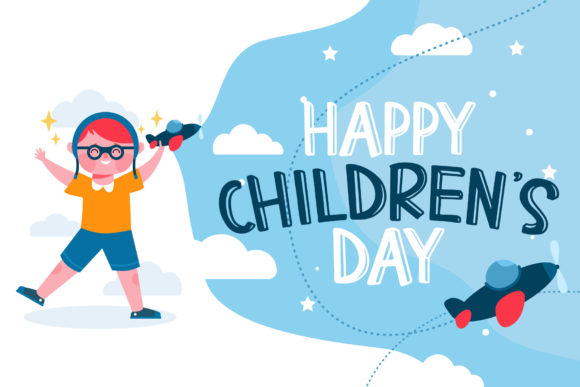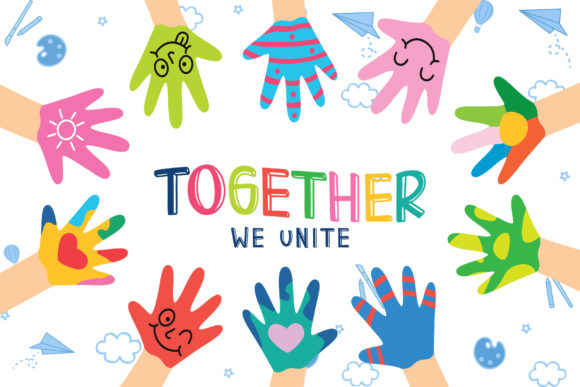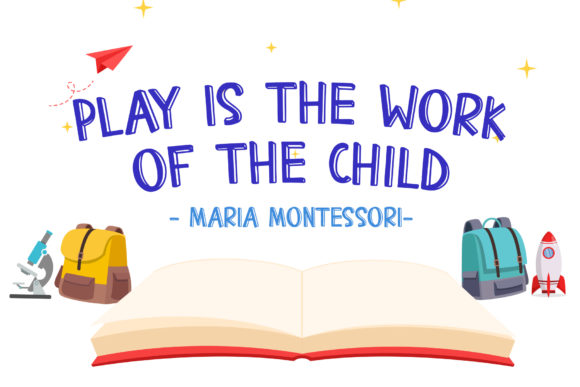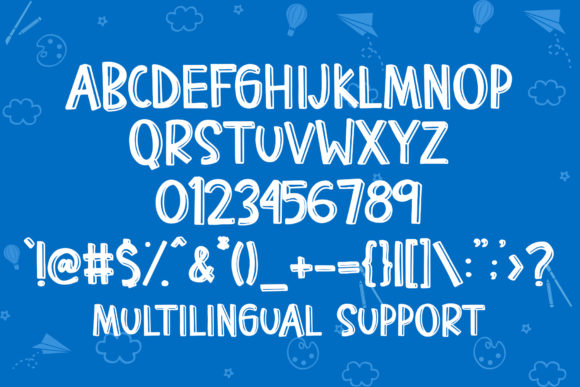
Introduction to Kidz Block Font
Remember the moment when you were tasked with designing a children’s activity sheet and you wanted to make it stand out? You spent hours browsing through fonts, searching for the perfect combination of playfulness and authenticity. If you’re a designer, you know how crucial it is to find the right font to bring your creative project to life. And that’s exactly where the Kidz Block Font comes in.
This delightful display font is designed to capture the imagination of kids, making it an ideal choice for school projects, activity sheets, and other children-related designs. With its chunky letters and transparent background, the Kidz Block Font adds a high-quality touch to any design. And the best part? It’s available for free download, making it an invaluable resource for designers.
By incorporating the Kidz Block Font into your designs, you’ll be able to create visually appealing and engaging content that’s sure to captivate your young audience. So why settle for ordinary when you can have extraordinary? Let’s dive into the world of Kidz Block Font and discover its endless possibilities.
Key Features of Kidz Block Font
- High-quality digital font designed specifically for creative projects and educational purposes.
- Unique block-style design, perfect for creating visually appealing and engaging graphics for kids and children.
Honest Review: Kidz Block Font
As a designer, I’m always on the lookout for unique and high-quality design resources to elevate my creative projects. Recently, I stumbled upon the Kidz Block Font, and I must say it’s been a delightful discovery.
What works well is the font’s playful and modern aesthetic, making it perfect for a variety of design applications, from children’s books to educational materials. The Kidz Block Font comes with a transparent background, allowing for seamless integration with other design elements.
- ✨ High-quality design with a unique and modern aesthetic
However, I did encounter some limitations. The font is primarily designed for digital use and may not be suitable for print materials, especially those with small font sizes. Additionally, the font’s block style can be overwhelming if used excessively.
Overall, I’m impressed with the Kidz Block Font’s potential to add a creative touch to my design projects. While it may have some limitations, its unique aesthetic and transparent background make it a valuable design resource.
Tips for Getting the Most Out of Kidz Block Font
For a high-quality design, use Kidz Block Font on a transparent background to create a clean and modern look. You can also use it in combination with other design resources to create a unique and creative project.
Kidz Block Font is perfect for designing kids’ educational materials, such as worksheets, activity sheets, and coloring books. It’s also great for creating fun and playful graphics for social media, websites, and marketing materials.
Yes, the Kidz Block Font is designed with a transparent background, making it easy to use on various backgrounds and designs. This feature allows for seamless integration with other design elements and ensures a clean, high-quality look for your creative project.